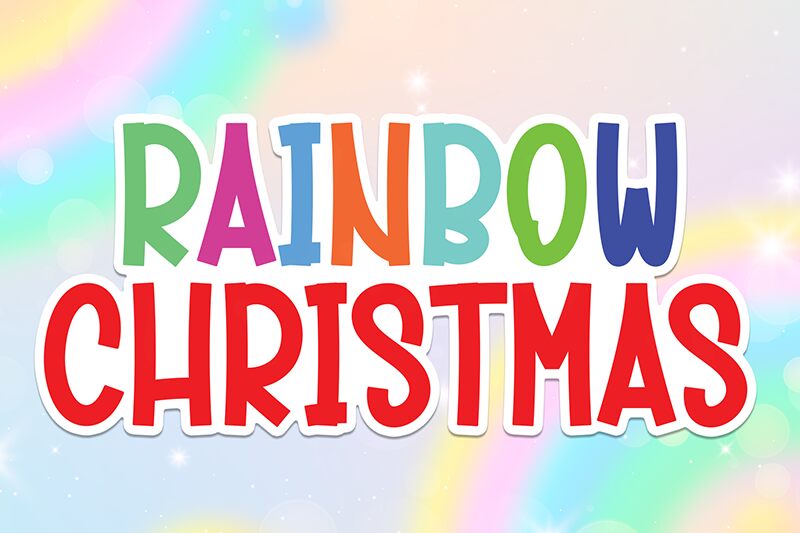
Rainbow Christmas
Rainbow Christmas font, a Scratchones creation, showcases a retro-inspired style with a modern vibe. Made of lowercase characters, this display typeface mixes between cursive letters and more traditional script symbols which all share slightly faded decorative elements. Enjoy more versatility when mixing letter combinations and connecting them in poster designs or simply pairing them with regular fonts in other projects.
Use Rainbow Christmas for album covers that steal the spotlight, music band artworks and music festival branding projects, classical restaurant signage designs as well business cards designed to impress others. The free-to-download font can best be displayed on apparel items like t-shirts or hats for typography artwork fans.